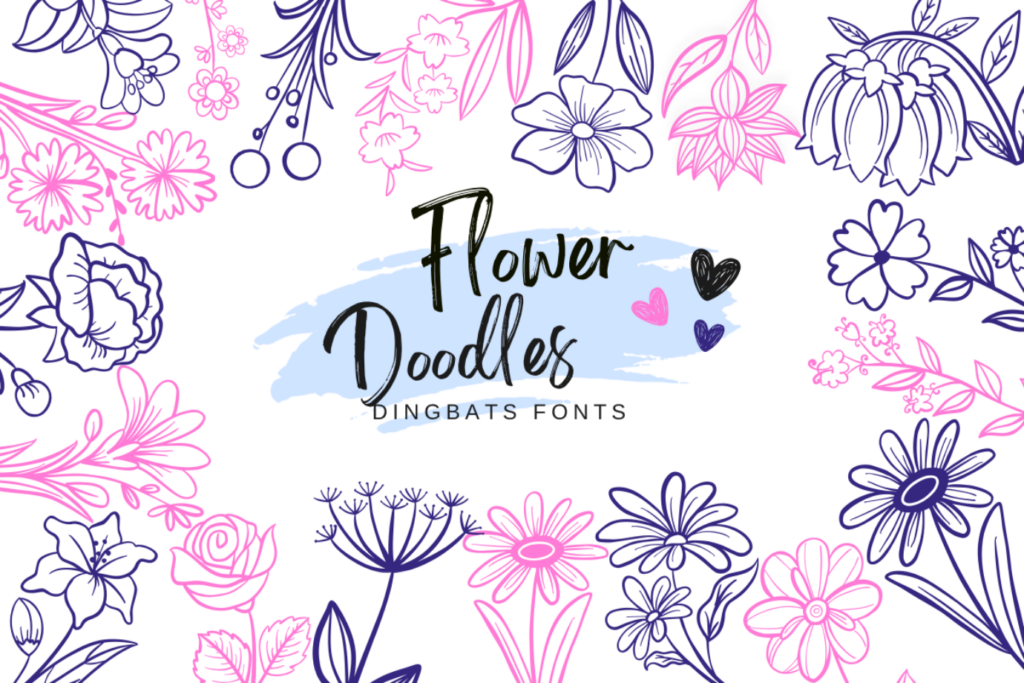
Have you ever wanted to add a personal touch to your designs? There’s something magical about hand-drawn doodles that brings warmth and creativity to any project. If you’re like many designers, you crave those unique elements that make your work stand out.
Doodle-style dingbats fonts are not just fun; they infuse personality and charm into your designs. These playful icons can enhance everything from invitations to social media graphics. They solve the problem of finding that perfect, whimsical element to elevate your projects and connect with your audience. Imagine how a cute heart or quirky star could add a delightful twist to your layouts!
Get ready to discover a delightful array of hand-drawn dingbat fonts that will inspire your creativity. From playful illustrations to sweet motifs, each font offers something special. Let’s explore these charming designs together and find the perfect fit for your next creative endeavor!
Doodle Hand Drawn Font
Doodle Hand Drawn Font brings playful, whimsical elements to your creative projects. Use it to embellish journals, planners, or children’s artwork with charming doodles. Imagine adding a swirl or heart to a birthday card for a personal touch. This font makes it easy to incorporate delightful designs with just a few keystrokes.
Flower Doodle Font
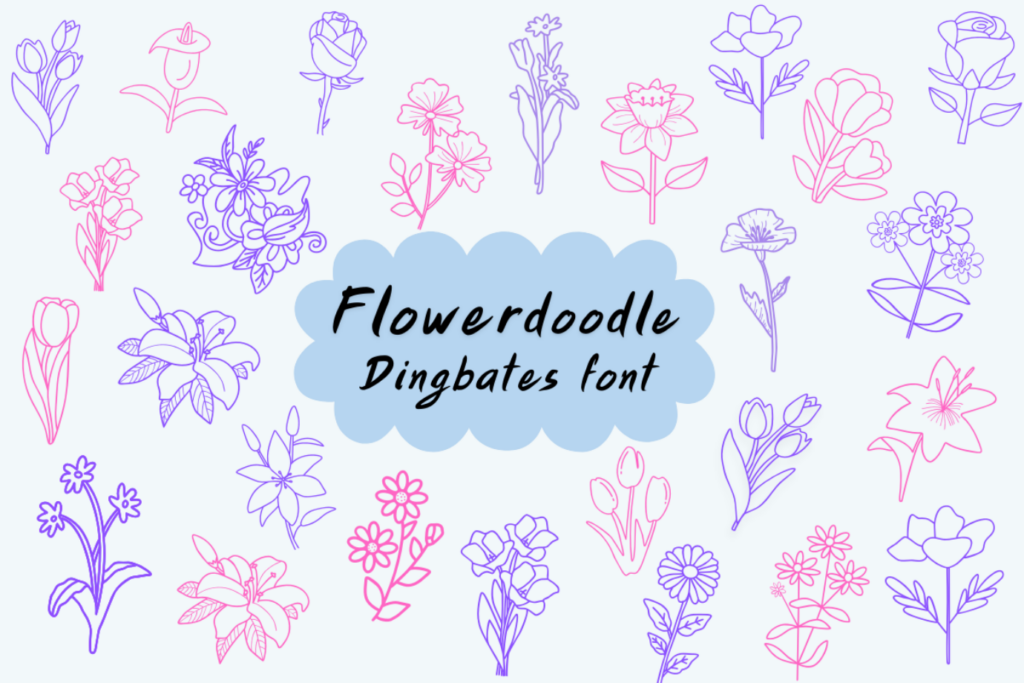
Flower Doodle Font offers delightful, hand-drawn flower designs in a playful dingbat format. Ideal for enhancing greeting cards, scrapbooks, or digital invitations, it brings a whimsical touch to your creations. Imagine using these charming flowers to create a unique border around a heartfelt message or to add flair to a birthday invite. This font makes it easy to incorporate nature-inspired elements into your projects, saving time while elevating your designs.
Doodle Symbol Set Font
Add a playful touch to your designs with the Doodle Symbol Set font, featuring charming hand-drawn dingbats. Ideal for social media graphics, bullet journaling, or web design, these organic icons add character to any project. Imagine accentuating your presentation with quirky arrows or personalizing a gift tag with cheerful smiley faces. Embrace creativity effortlessly, as these symbols bring warmth and a personal touch to your work.
Sea Doodle Font
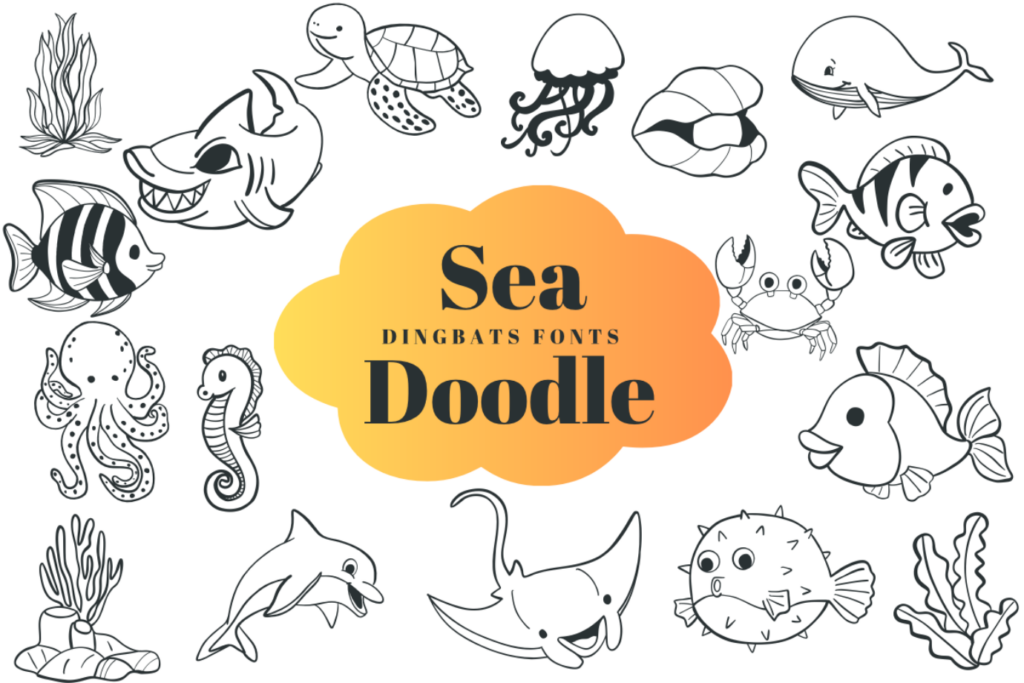
Dive into creativity with hand-drawn dingbat fonts that capture the beauty of the ocean. These charming illustrations are wonderful for creating playful invitations, educational materials, or summer-themed projects. Imagine using a whimsical dolphin doodle to highlight fun facts in a children’s book. With their clean outlines, these designs effortlessly enhance any creative work, making it easy to add a personal touch.
Cute Valentine Doodle Font
Cute Valentine Doodle is a delightful dingbats font featuring charming hand-drawn designs. It’s ideal for enhancing cards, invitations, and scrapbook pages with whimsical flair. Imagine using it to create playful love notes adorned with sweet doodles that capture hearts. With its easy integration into digital projects, this font simplifies adding a personal touch to your creations.
Christian Doodle Font
Christian Doodle Font features delightful hand-drawn doodles that add charm to any project. It’s ideal for creating personalized greeting cards, scrapbook pages, or faith-based crafts. Imagine using these whimsical doodles to embellish a handmade journal for daily reflections. The unique designs make it easy to express your creativity and enhance your work with a warm, inviting touch.
Bird Doodle Font
Bird Doodle is a delightful dingbat font featuring a charming sketched style. It’s ideal for enhancing wedding invitations, DIY crafts, and personalized decorations. Imagine using these whimsical bird doodles to adorn your handmade greeting cards or scrapbook pages. With its easy-to-use format, you can effortlessly add a playful touch to any creative project.
Doodles Flower Font
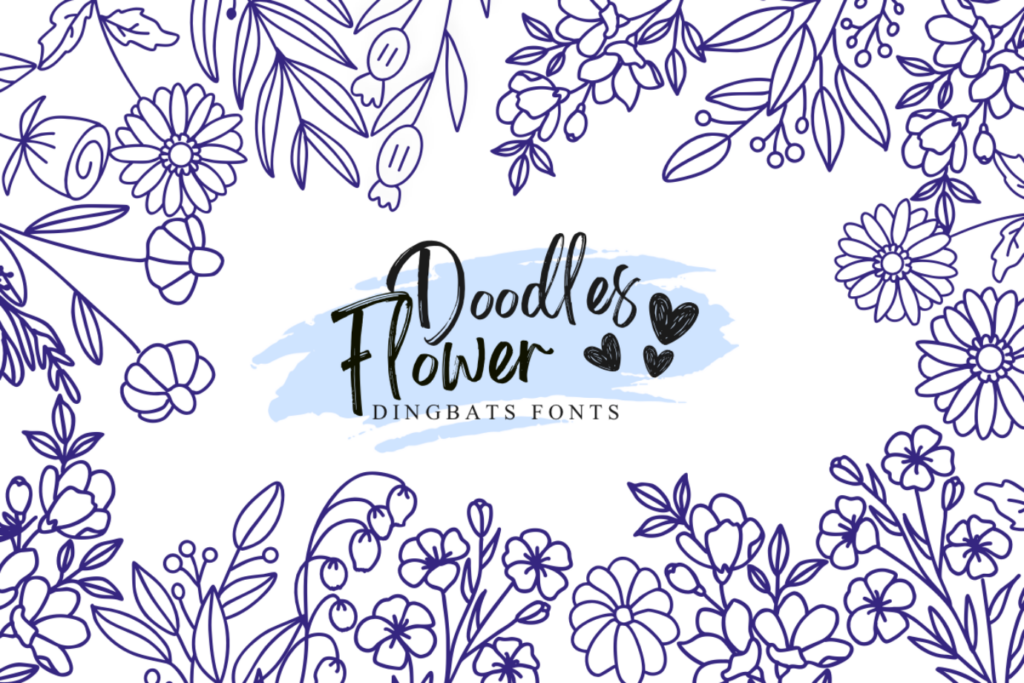
Doodles Flower Font is a delightful dingbat font featuring charming hand-drawn flower designs. It’s ideal for enhancing cards, invitations, and scrapbook pages with a whimsical touch. Imagine using these floral symbols to create personalized thank-you notes or cheerful birthday invitations. This font makes it easy to add nature-inspired elements to your projects, saving you time while sparking creativity.
Weather Doodle Font
Weather Doodle Font is a delightful collection of hand-drawn weather icons, including clouds, rain, and sunshine. It’s ideal for creating engaging educational materials, kids’ crafts, and seasonal decorations. Imagine using these charming doodles to enhance a weather-themed bulletin board or a scrapbook page about summer adventures. With easy integration into various projects, it brings a whimsical touch that sparks creativity and joy.
Emotion Doodle Font
Emotion Doodle Font offers a whimsical collection of charming hand-drawn doodle dingbats. Use it to enhance your craft projects, like decorating planners, diaries, or activity books. Imagine filling a child’s scrapbook with playful doodles that spark joy and creativity. Its versatility makes it easy to integrate delightful designs into any creative endeavor.